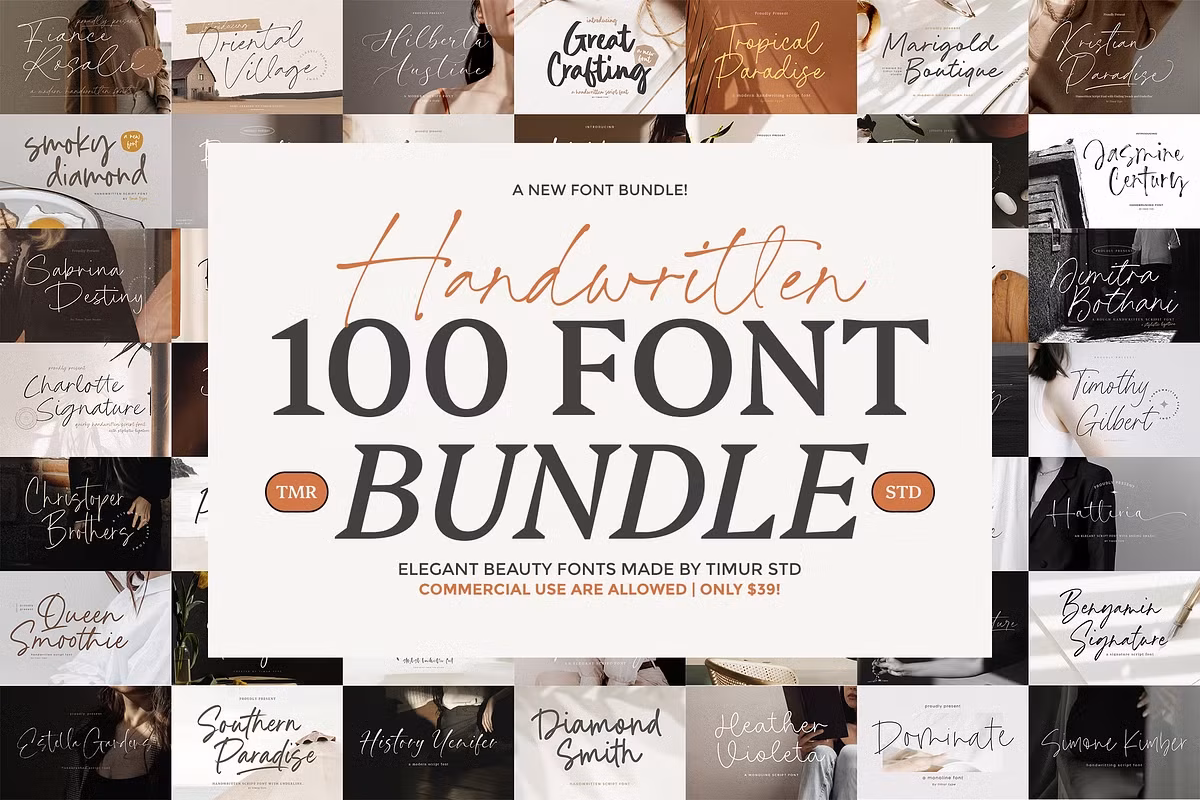
100 Elegant Handwritten Font Bundle Free Download
Please note, you must purchase this font for commercial use. However, you can easily download 100 Elegant Handwritten Font Bundle Free Download for personal use and testing purposes. 100 Elegant Handwritten Font Bundle is a comprehensive collection of 100 beautifully crafted handwritten fonts, perfect for a variety of design projects. Whether you're working on wedding invitations, branding, logos, social media posts, or greeting cards, this bundle offers a wide range of styles, from delicate script fonts to bold, artistic letterforms. With the variety provided in this bundle, you can find the perfect handwritten touch for your projects, adding a personalized, organic feel to your designs. Download 100 Elegant Handwritten Font Bundle Free Download today and explore its potential before opting for a commercial license.